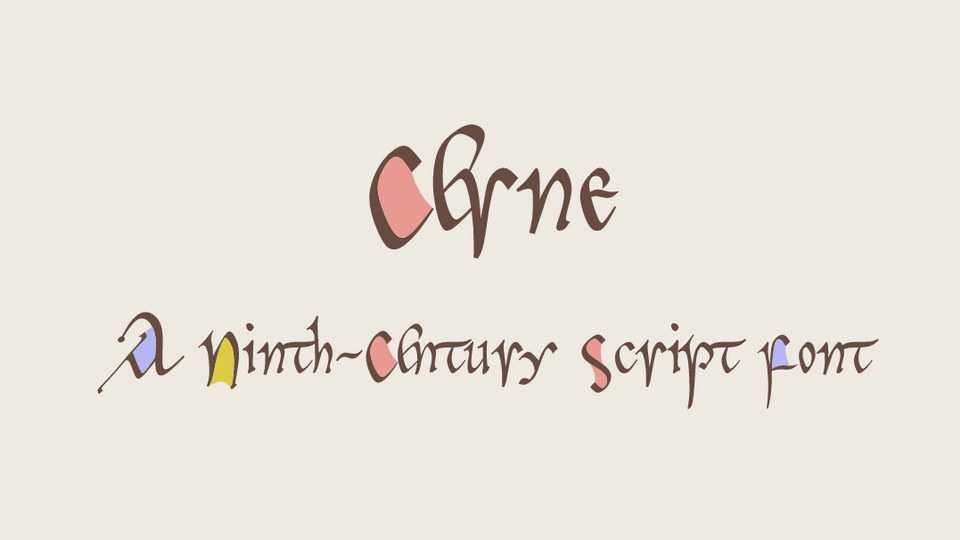
Download Cerne font, a typeface based on the Book of Cerne, a ninth-century prayerbook the main script of which is a beautiful pointed insular minuscule, cursive in appearance and yet formal.